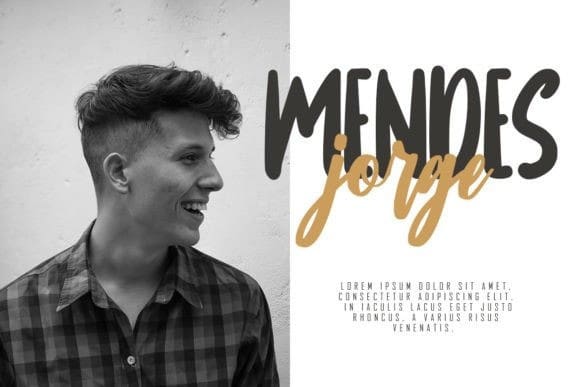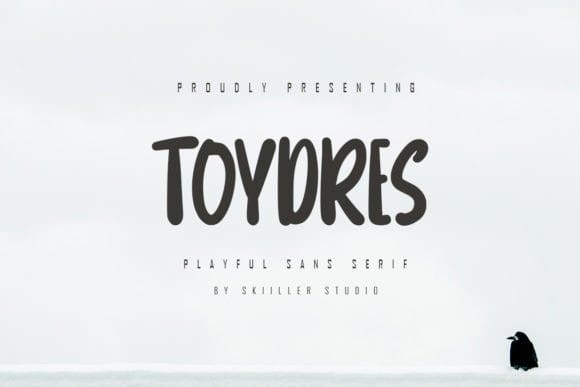
Toydres Playful Font
Toydres Playful Font is a beautiful love font suitable for business or commercial use to support your promotions such as designs, banners, flyers, clothes and much more